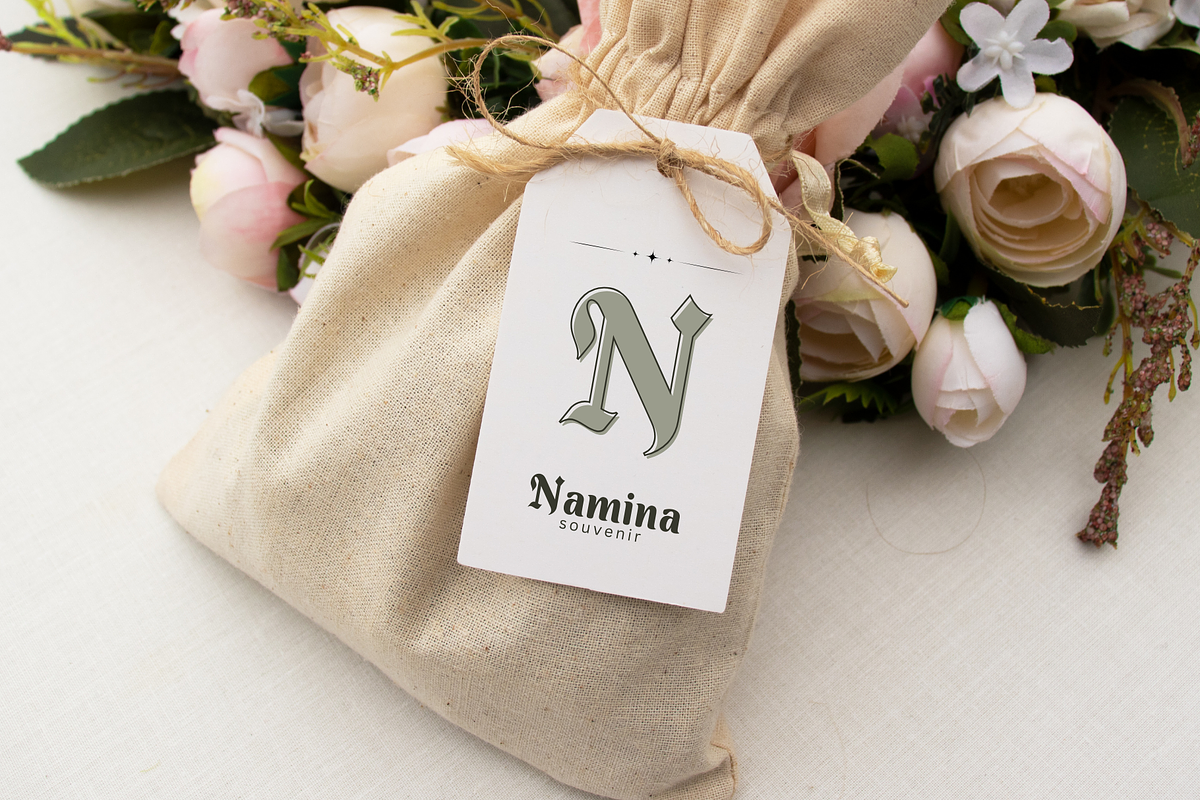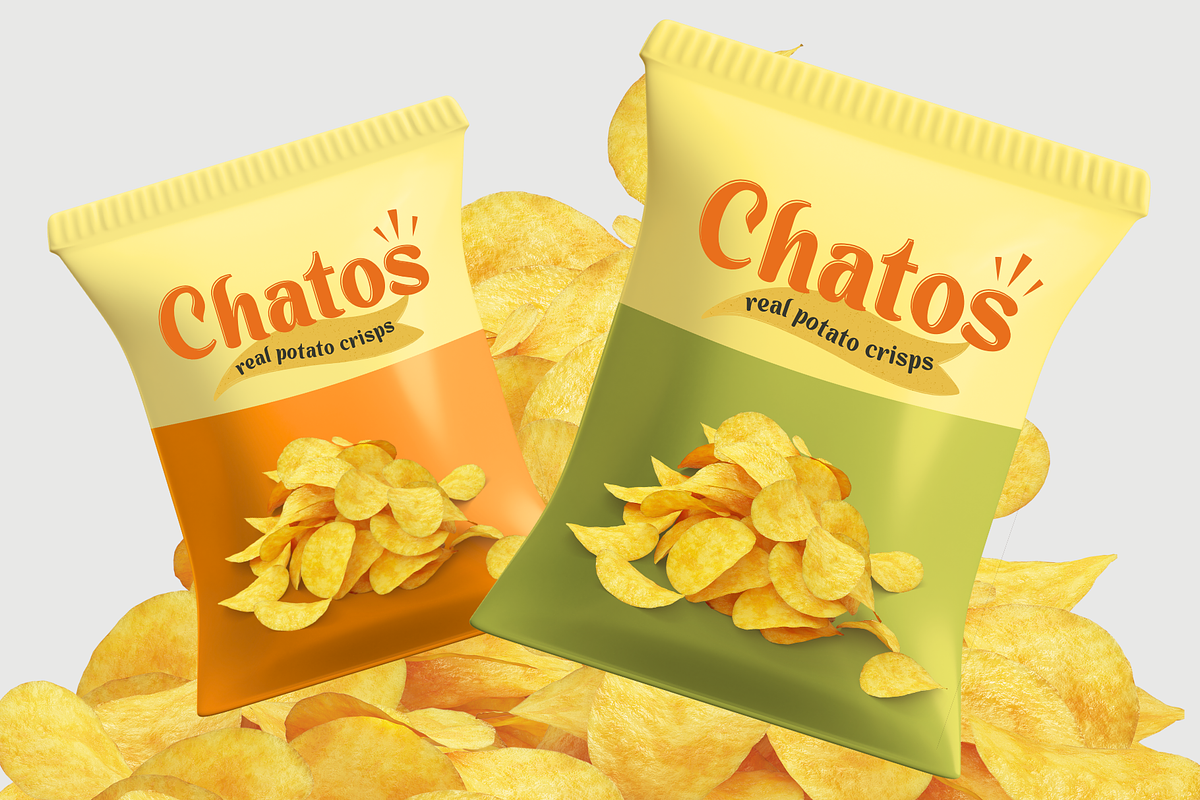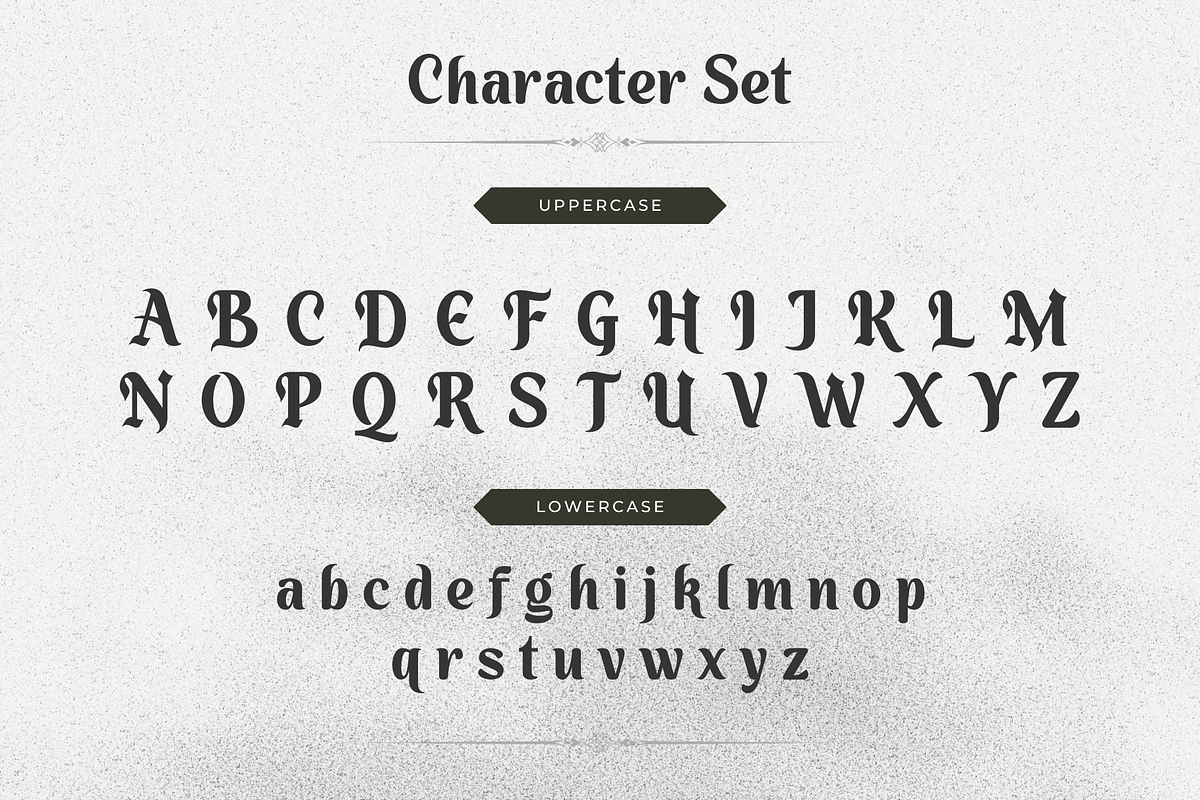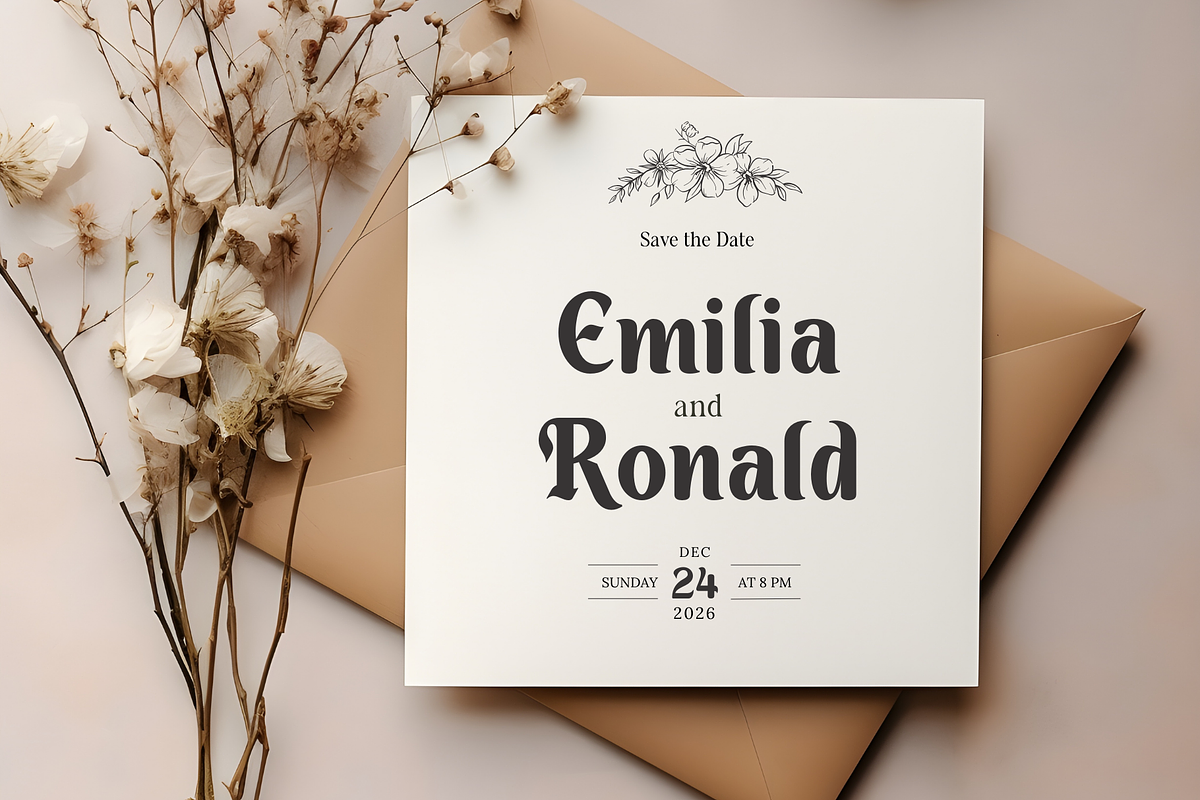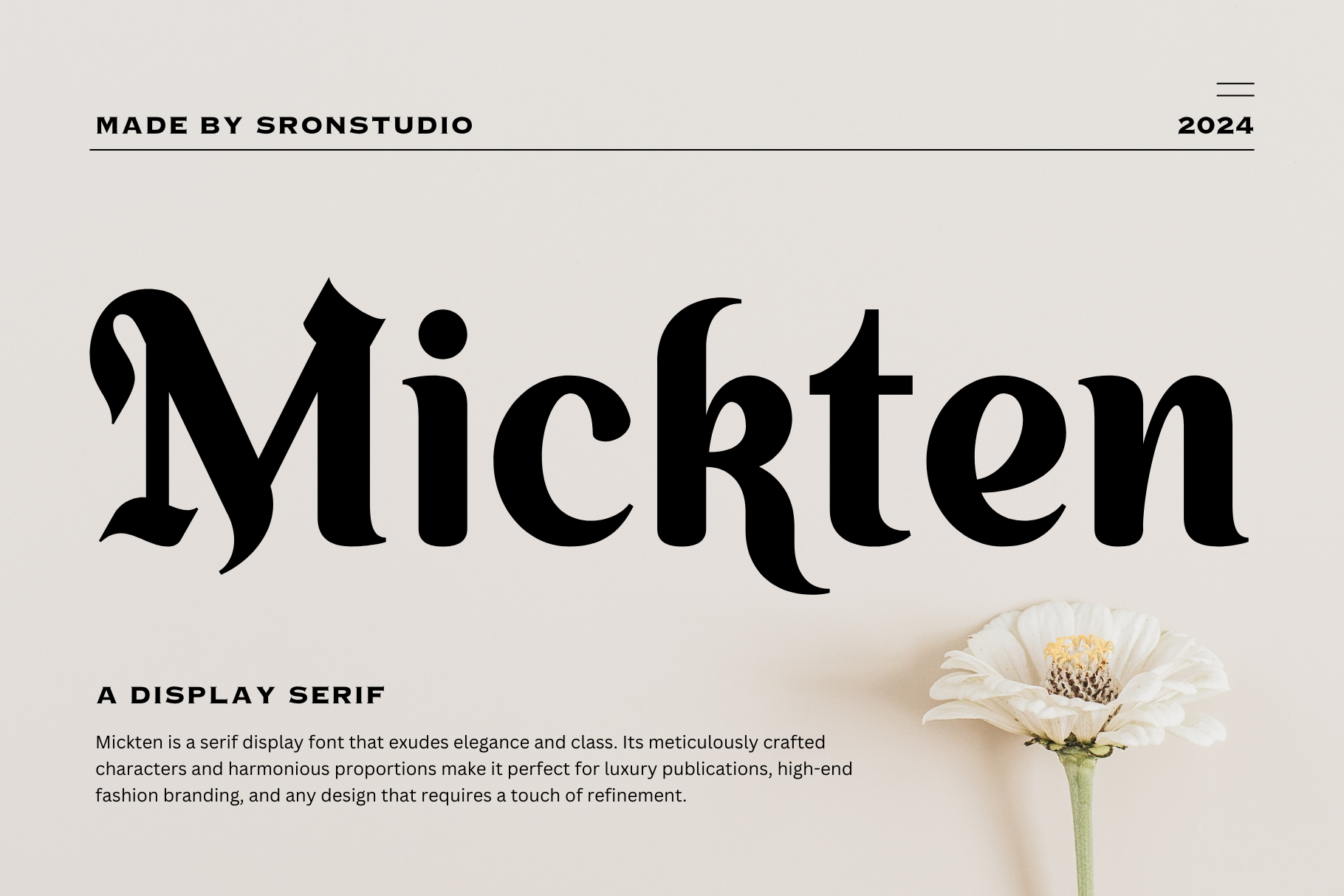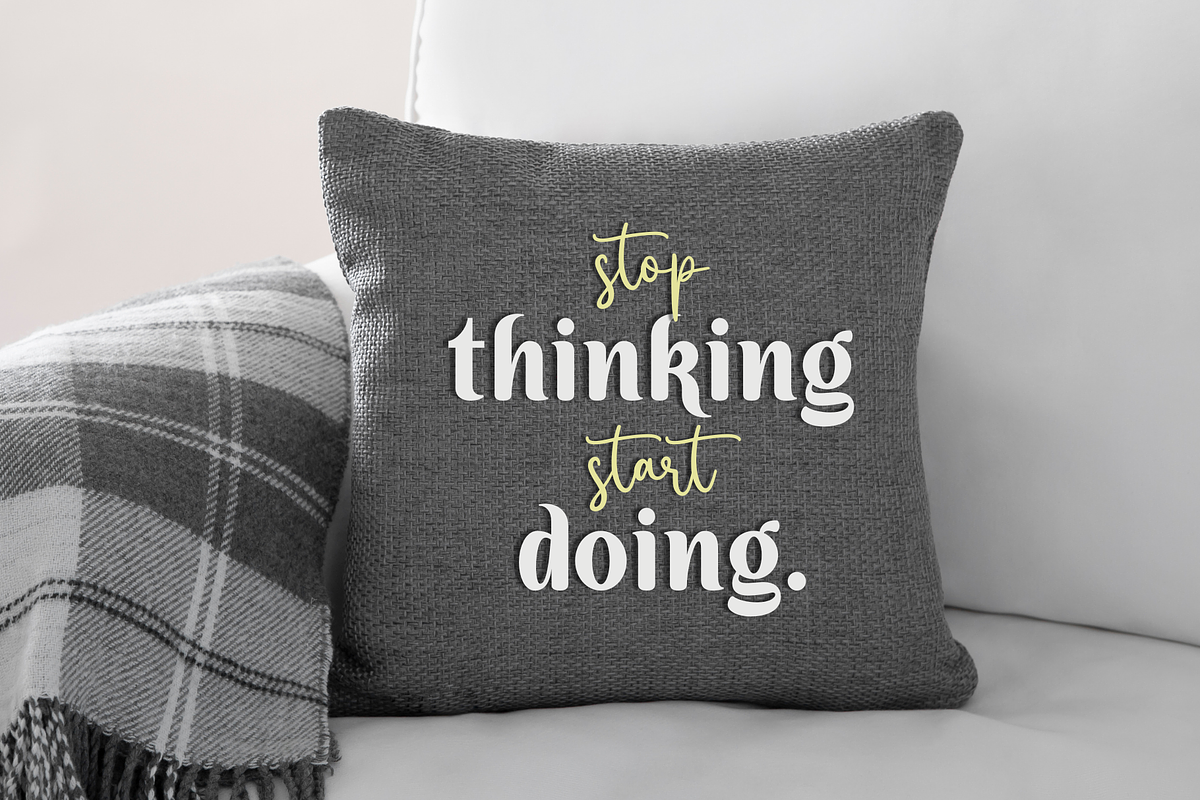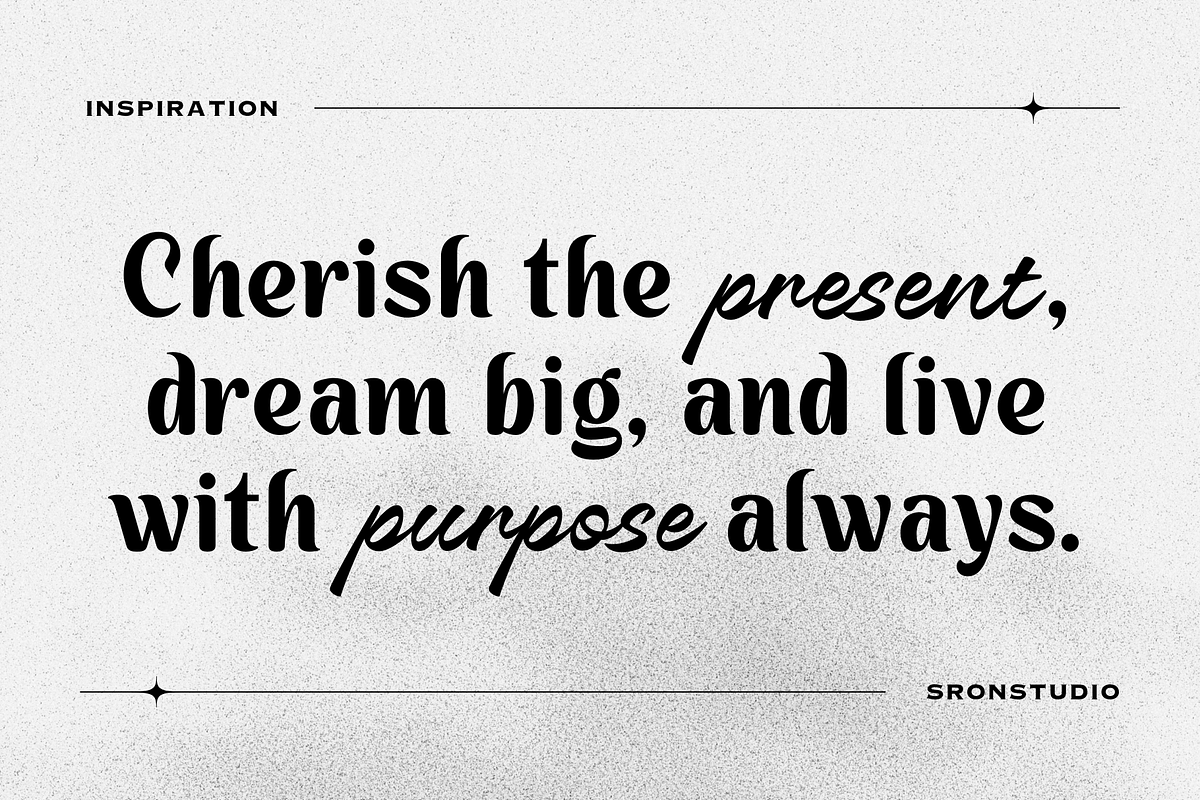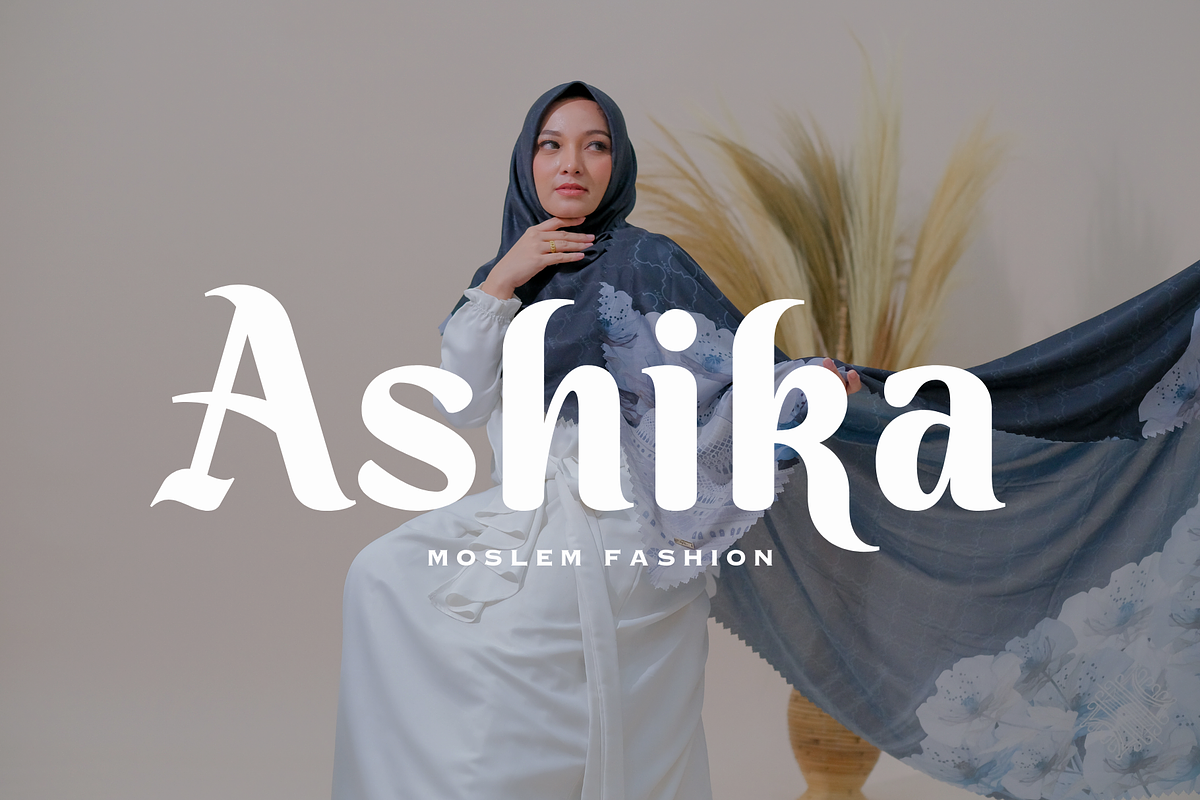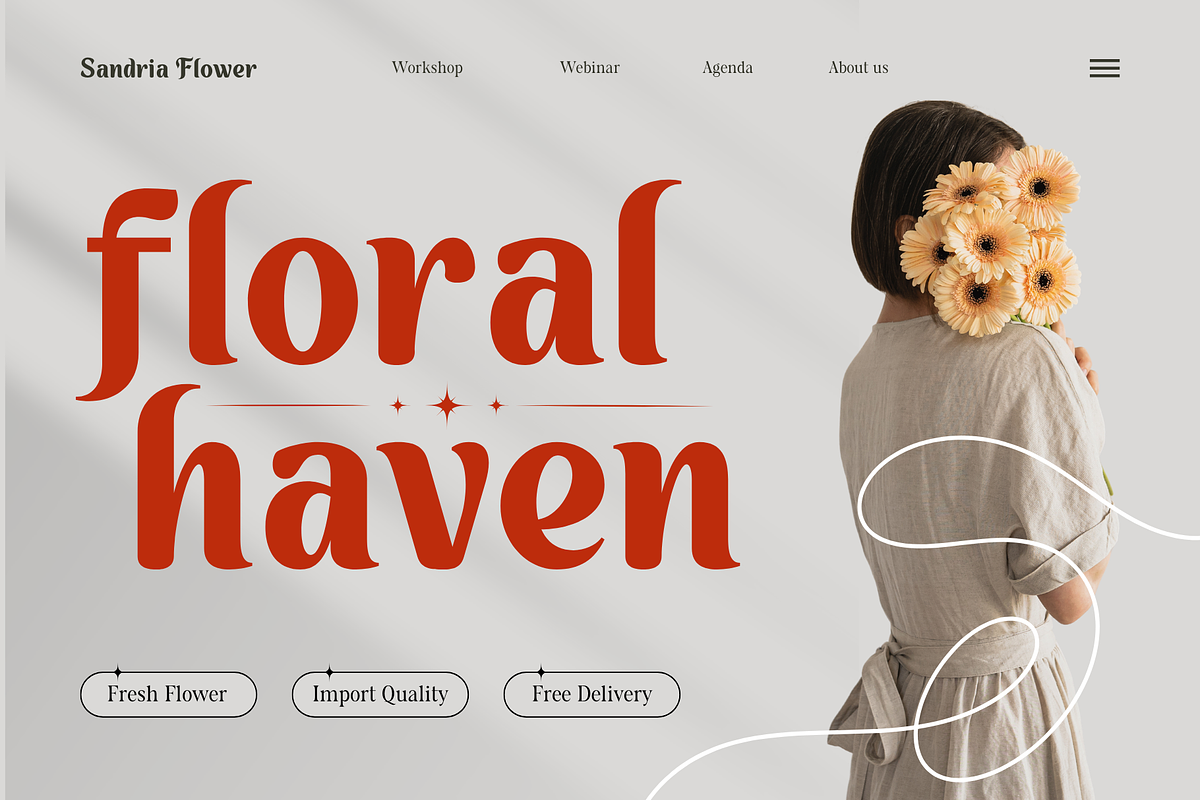
Mickten - Display Serif Font
"Mickten" is a striking display serif font that blends classic elegance with a modern edge. Its bold and well-defined serifs make it perfect for headlines, posters, and branding projects that demand attention. Whether used for magazine covers, book titles, or logos, "Mickten" delivers a sophisticated and authoritative presence. The font's unique character design adds a touch of refinement, making it a versatile choice for creative professionals looking to make a lasting impression.